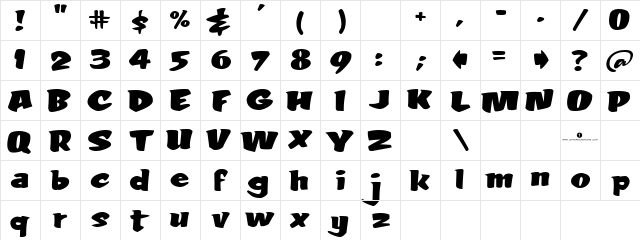
LHF Fat Tony REG Regular Free Font
LHF Fat Tony REG Regular
Design Context for LHF Fat Tony REG
LHF Fat Tony REG is a composed and adaptable typeface that performs quietly and consistently across a wide range of design contexts.